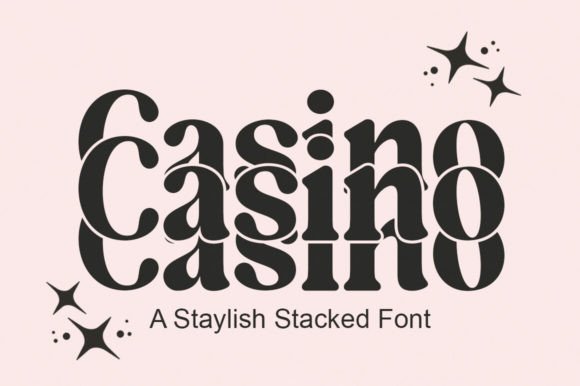
Introducing Casino Font, the ultimate game-changer in the world of typography. Crafted by the talented team at Kama Studio, this exceptional display font is here to revolutionize your design projects.
With its stylish stacked letters, Casino Font is more than just a typeface – it's a statement. It breathes life into your creative endeavors and adds a touch of sophistication to any design. Whether you're working on branding materials, social media graphics, inspiring quotes, event invitations, business cards, movie covers, or anything in between, Casino Font is your secret weapon for making a lasting impression.
Why settle for ordinary when you can have extraordinary? Casino Font is the epitome of extraordinary. It boasts a unique blend of elegance and boldness, making it the perfect choice for those seeking to make a statement. This font demands attention and captivates your audience, leaving them in awe of your design prowess.
But Casino Font isn't just visually stunning – it's also incredibly versatile. Its adaptability knows no bounds, allowing you to unleash your creativity without limitations. Whether you're aiming for a modern, edgy look or a classic, timeless feel, Casino Font effortlessly adapts to your vision.
Not only does Casino Font excel in aesthetics, but it also understands the power of words. As the best font for bold hashtags, it amplifies your message and ensures your words are heard loud and clear. Let your hashtags shine and stand out from the crowd, effortlessly drawing attention to your brand or cause.
But wait, there's more! Casino Font understands the importance of emotions in design. It speaks to your audience on a deeper level, evoking feelings of excitement, intrigue, and curiosity. Its carefully crafted curves and intricate details create a sensory experience that leaves a lasting impact.
When you choose Casino Font, you're not just investing in a font – you're investing in the success of your creative endeavors. It's the missing piece that elevates your designs from ordinary to extraordinary. So go ahead, unleash your creativity and let Casino Font be your guiding light.